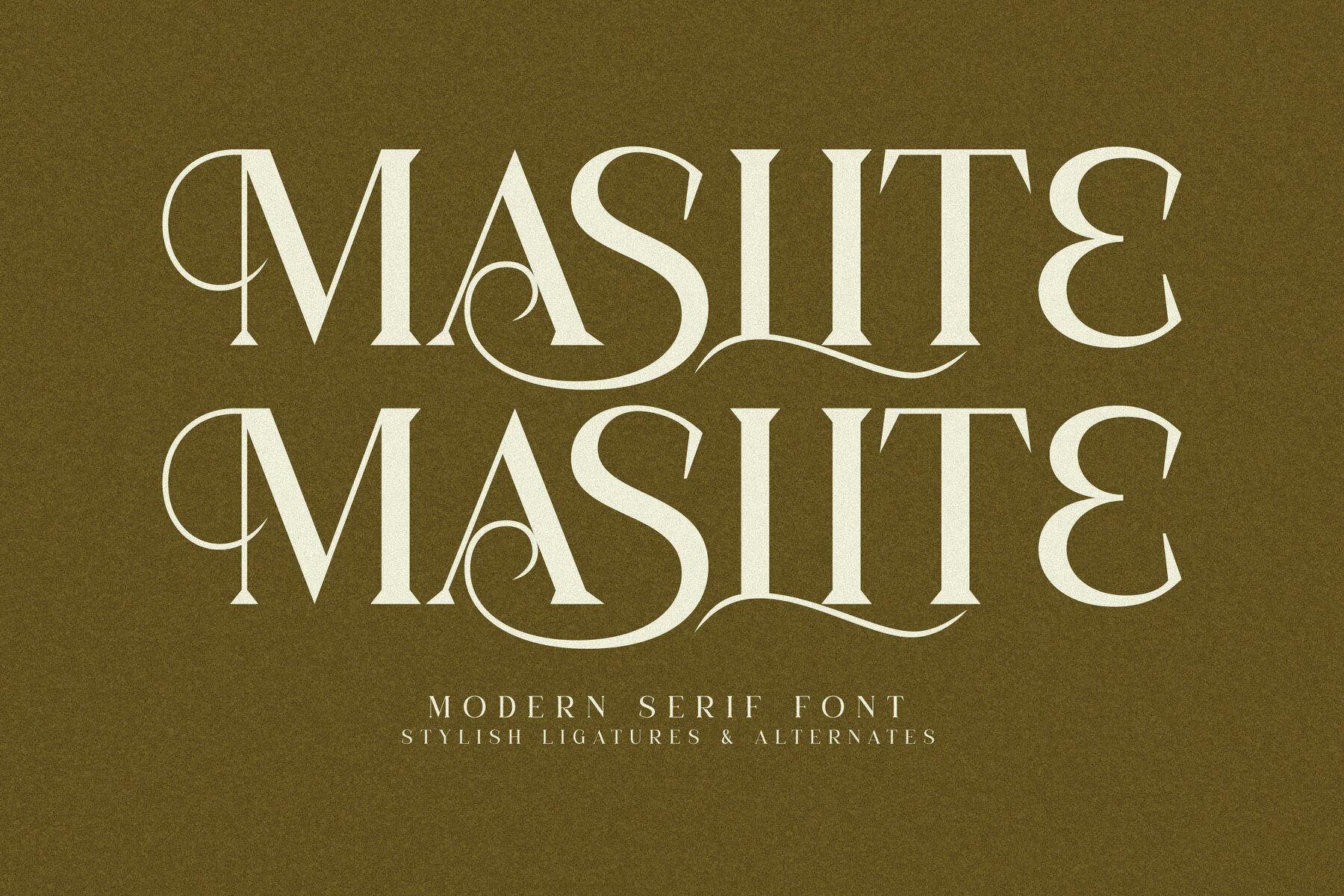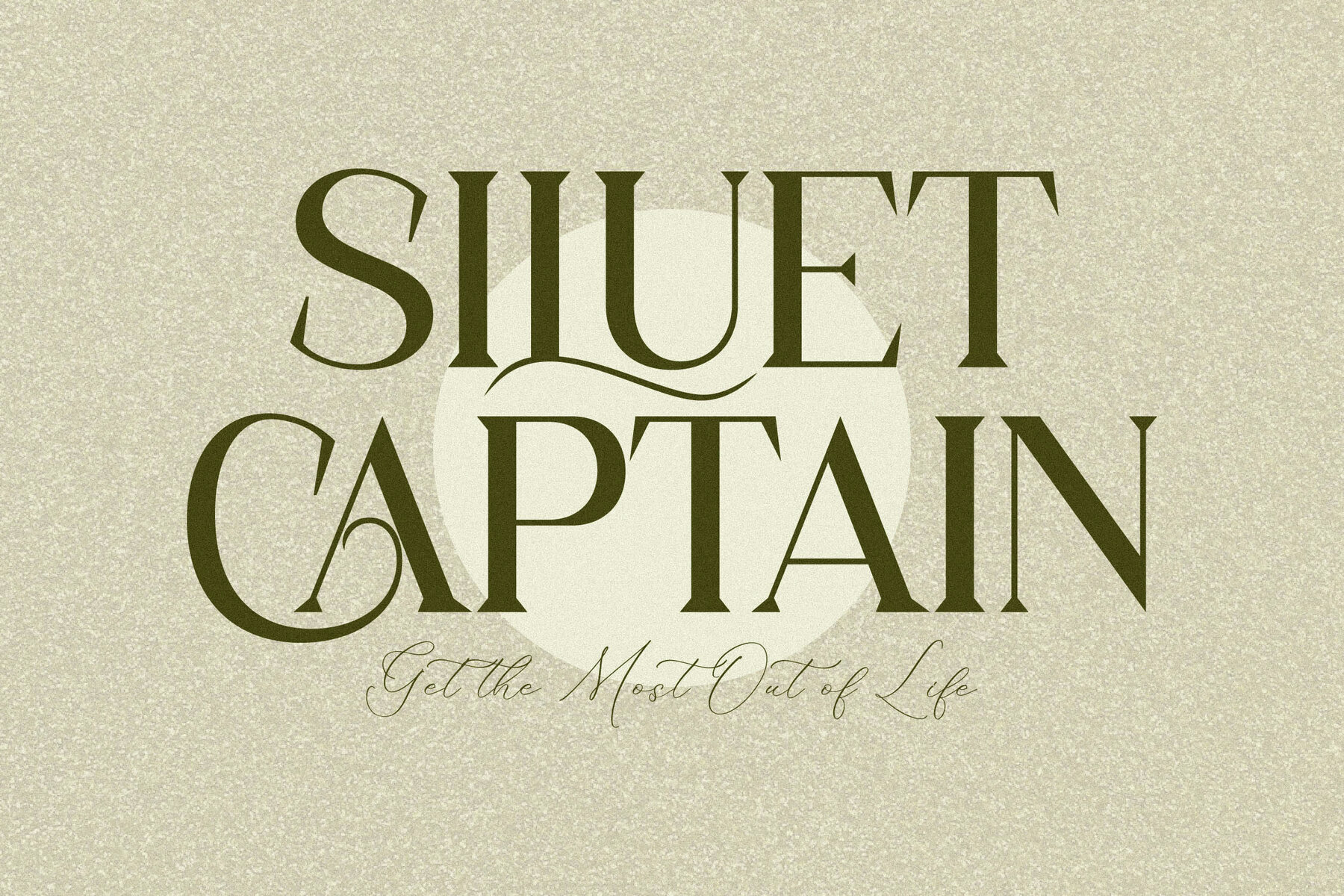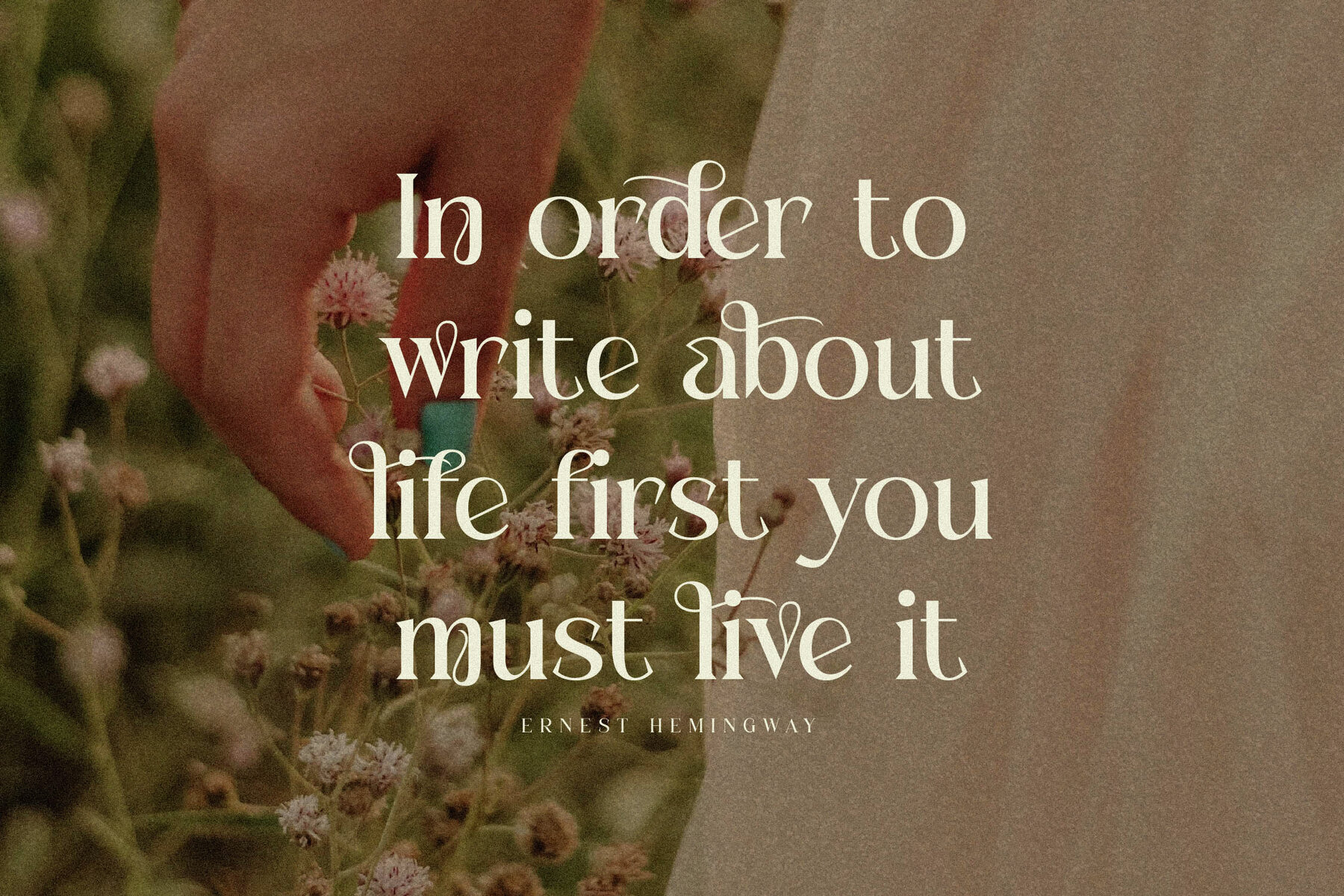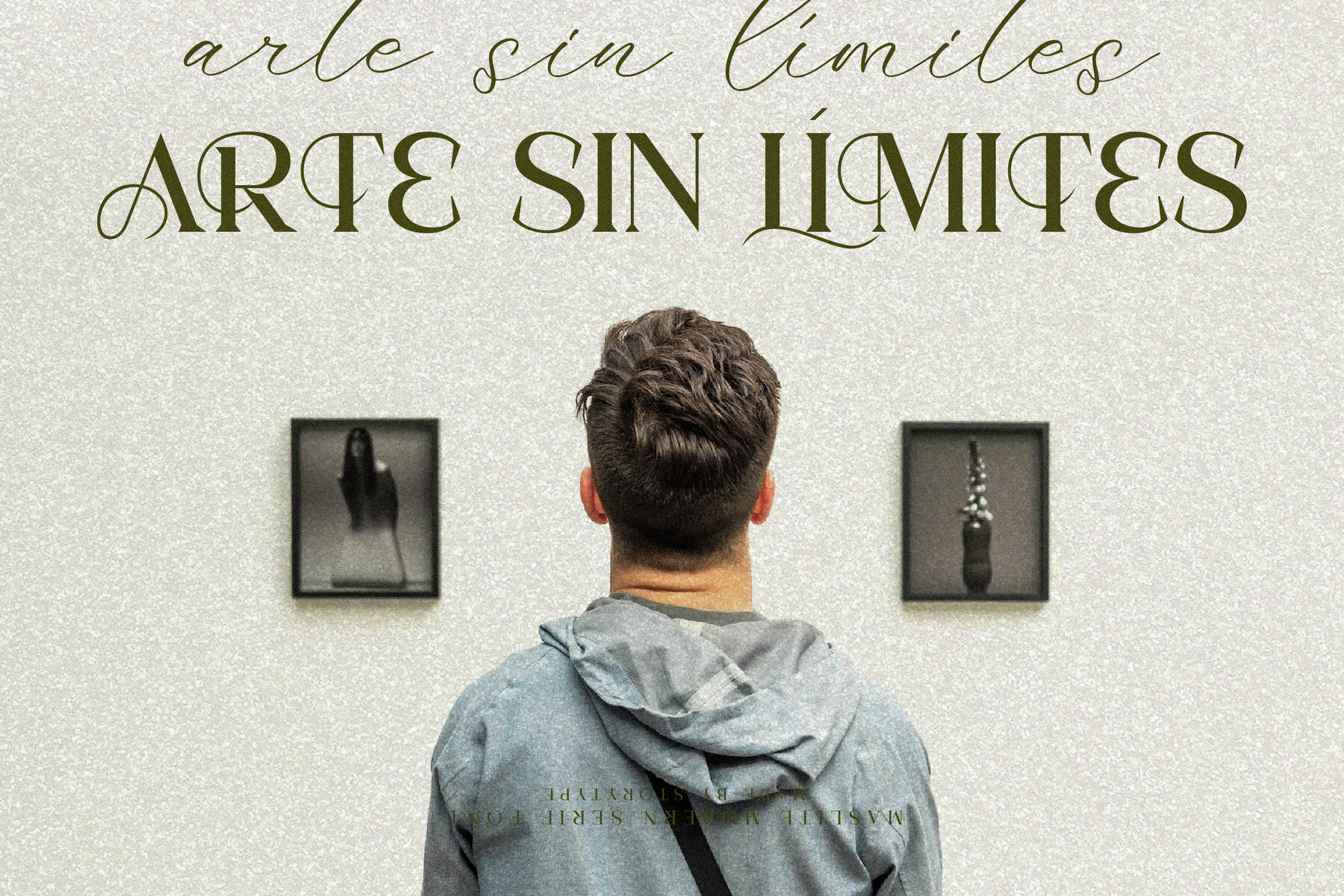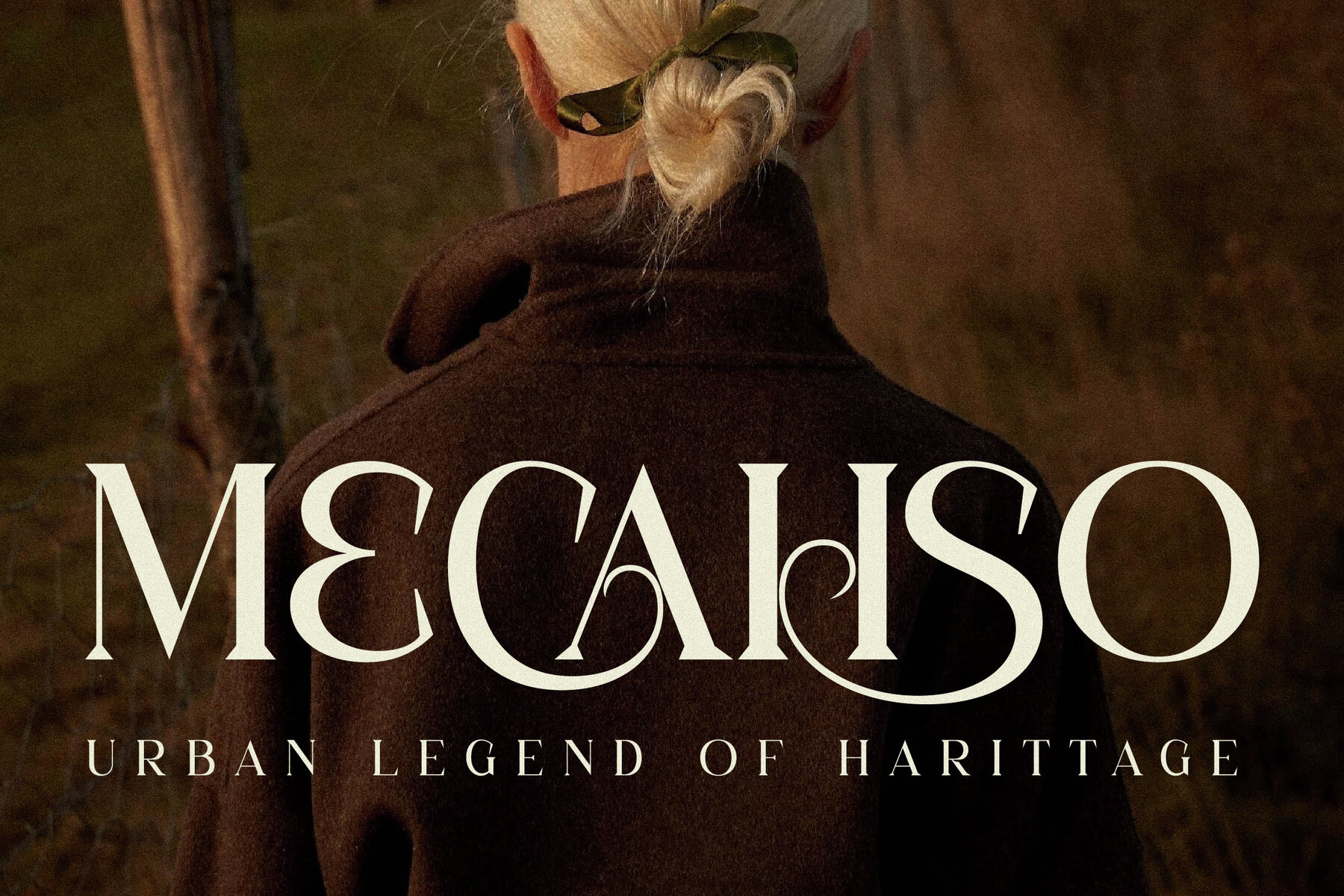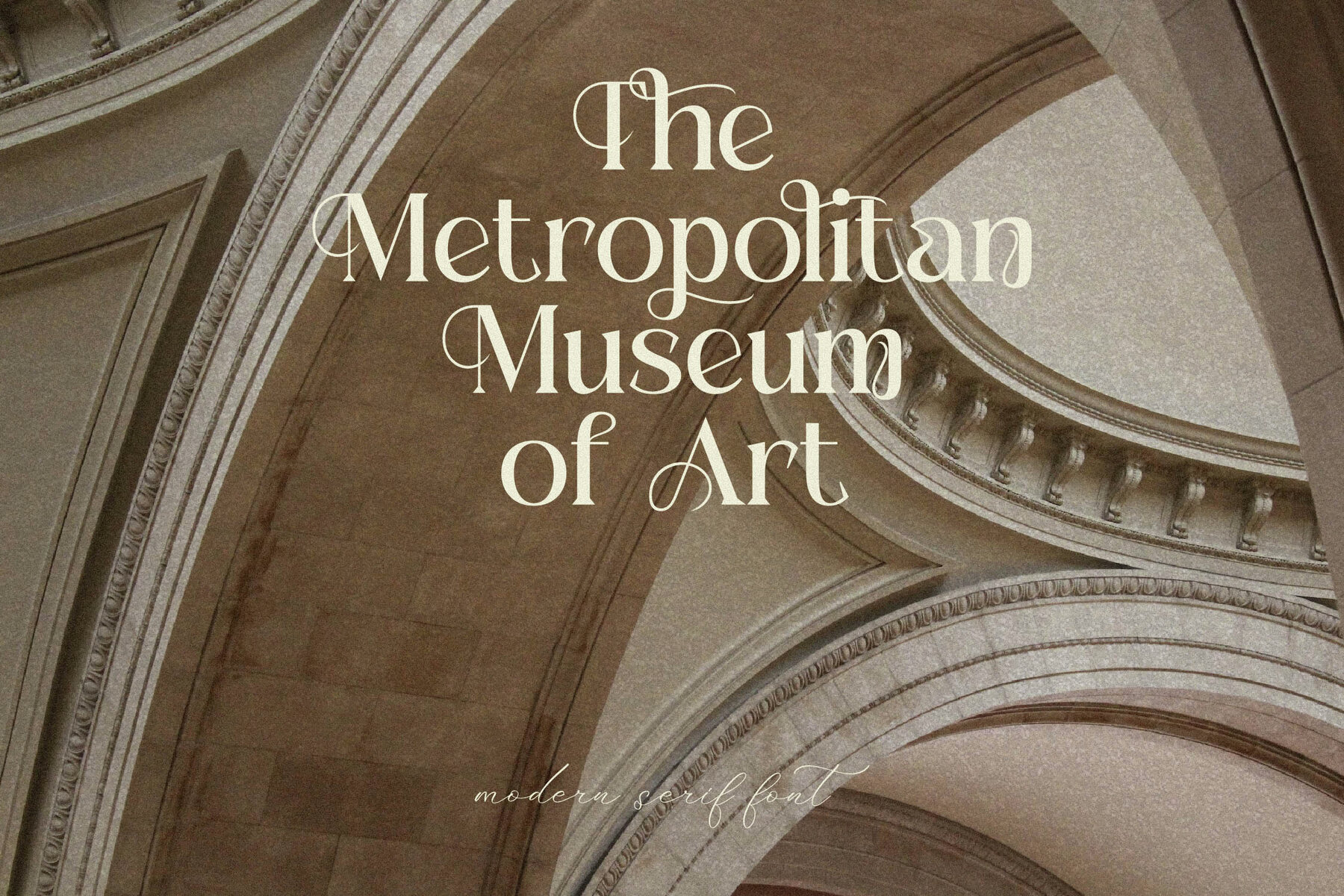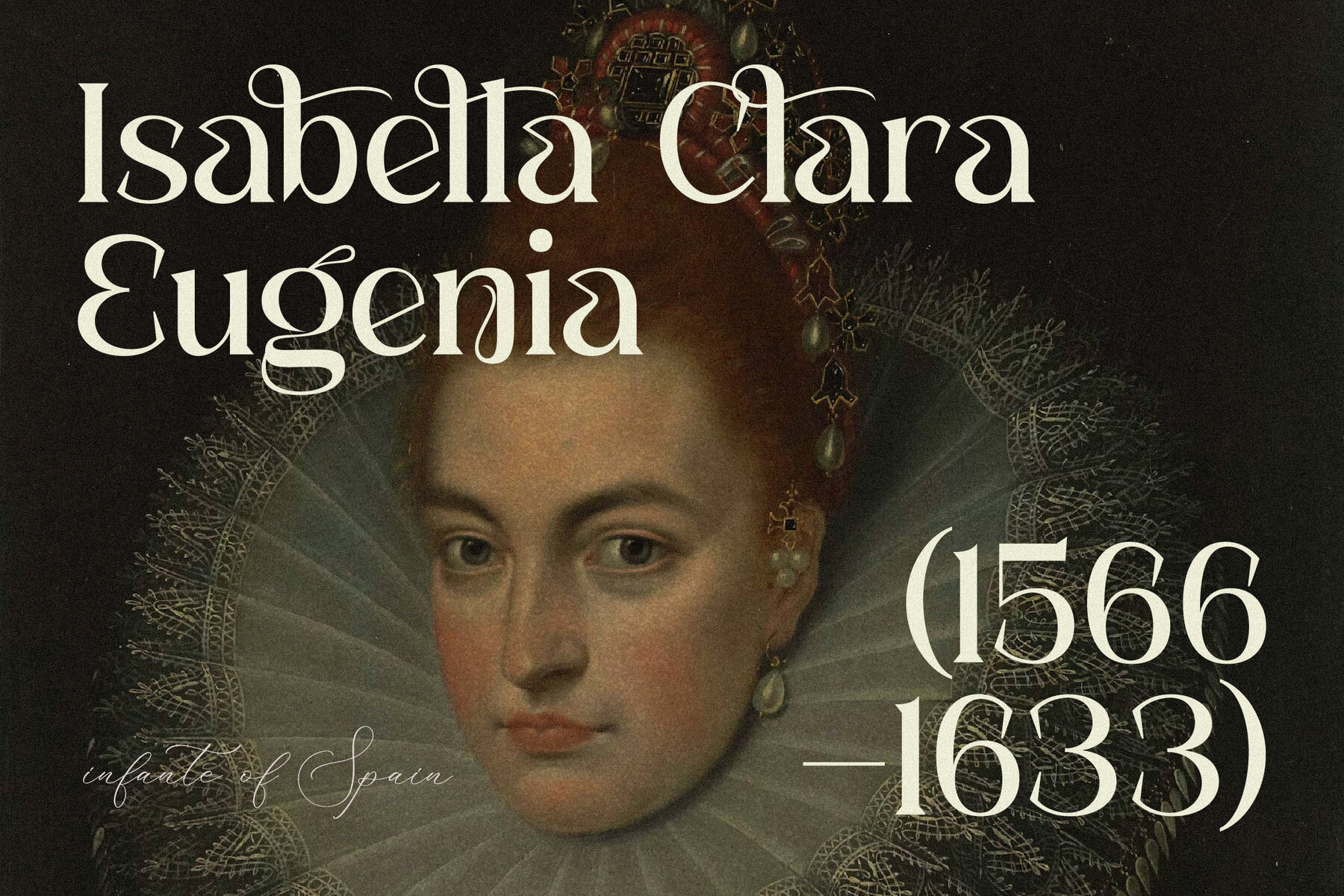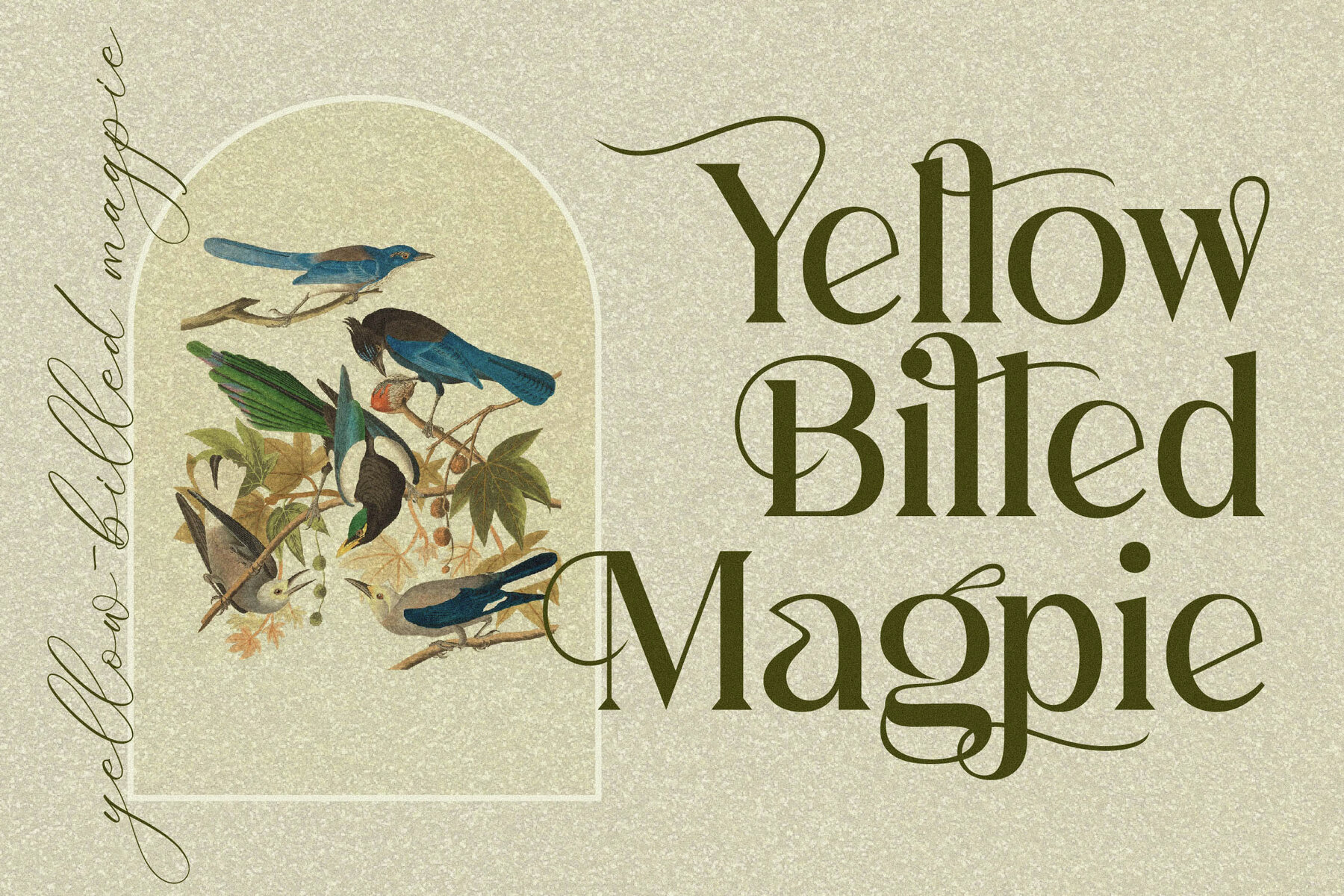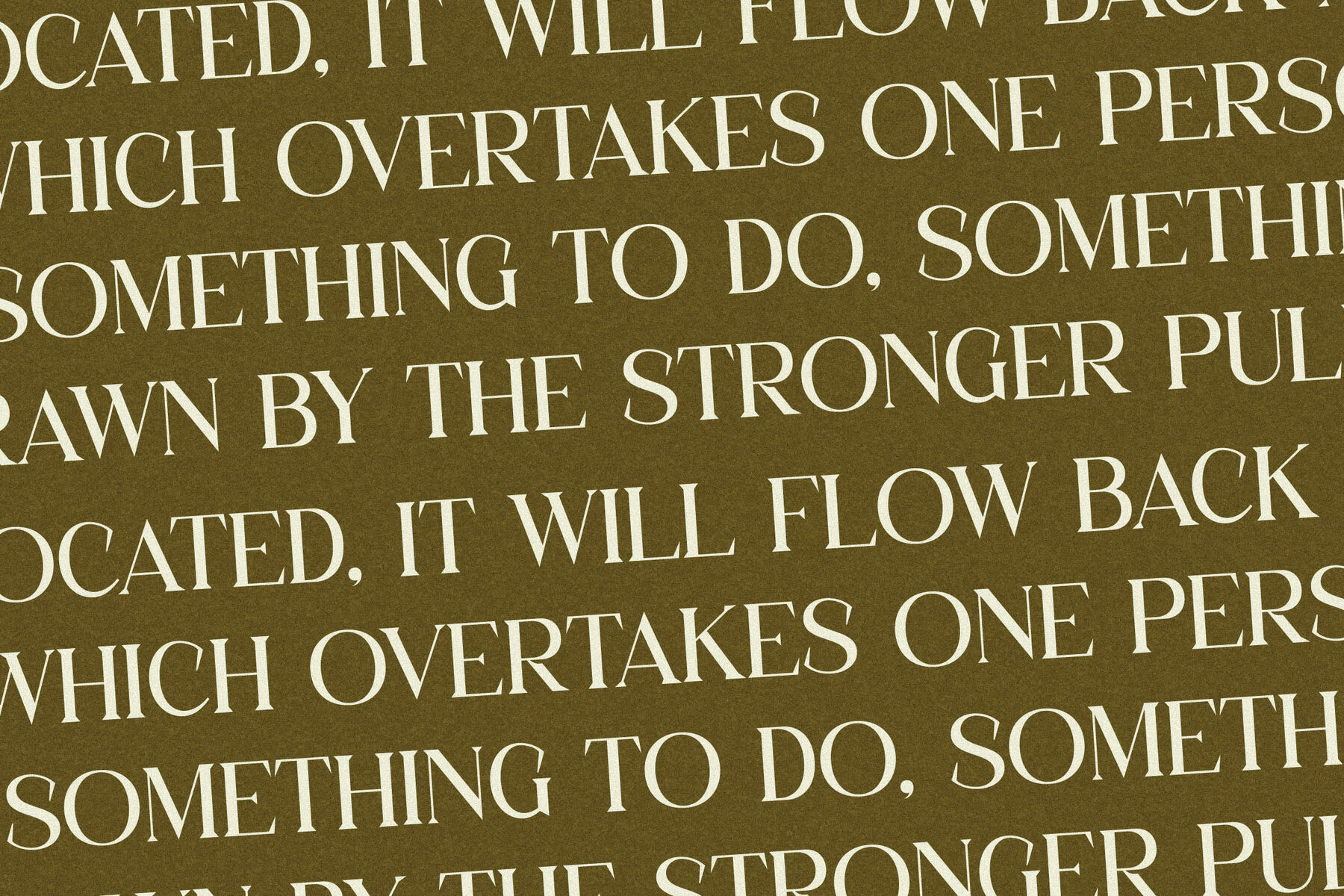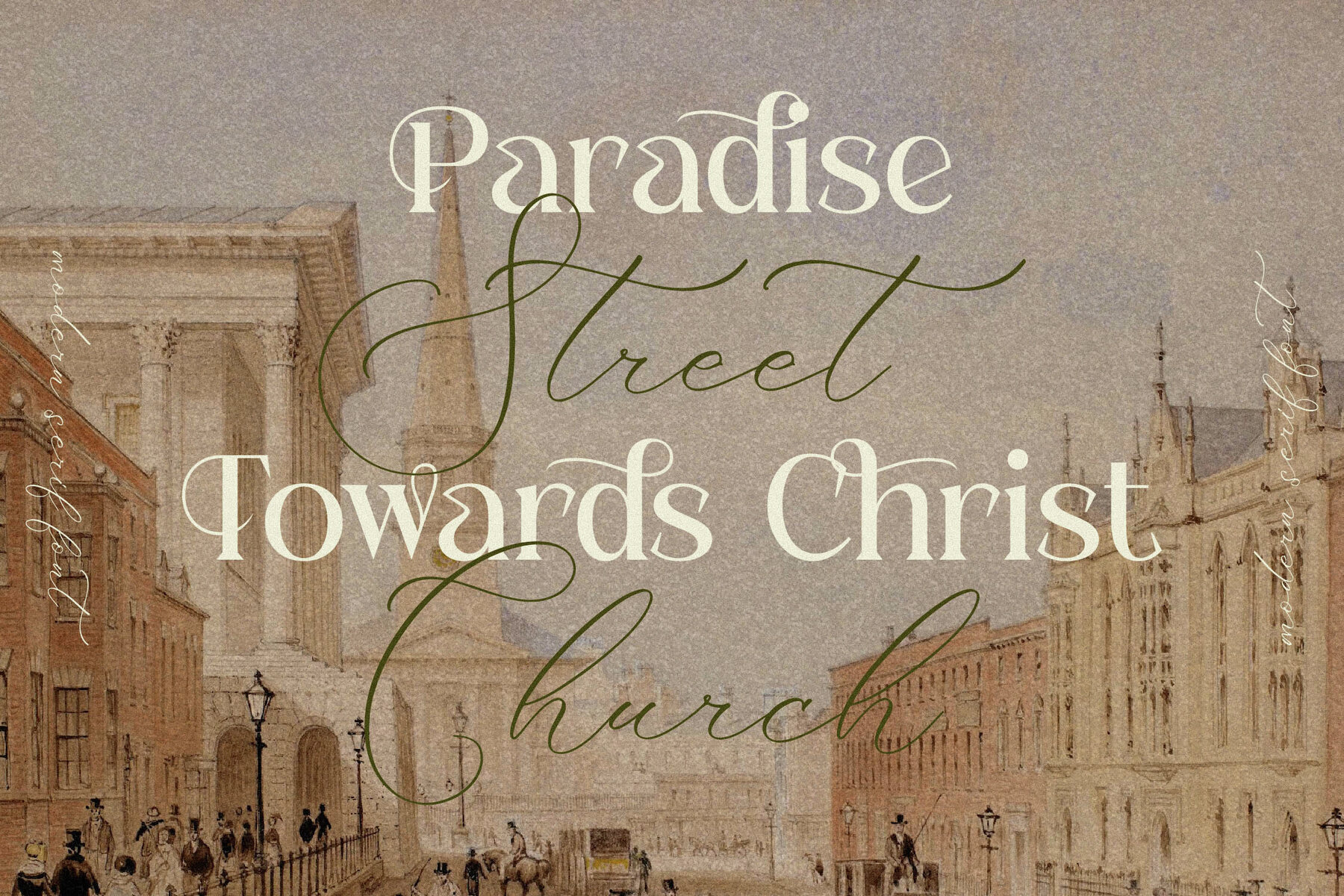
MASLITE Font
Discover the timeless beauty of the MASLITE typeface by Storytype Studio. This serif font masterfully blends modern aesthetics with classic design, making it an exceptional choice for luxury logos, book or movie titles, and high-end fashion branding. Whether you're designing for magazines, clothing lines, or crafting sophisticated quotes, MASLITE offers a distinctive style that stands out.MASLITE Typeface: Elegance Redefined